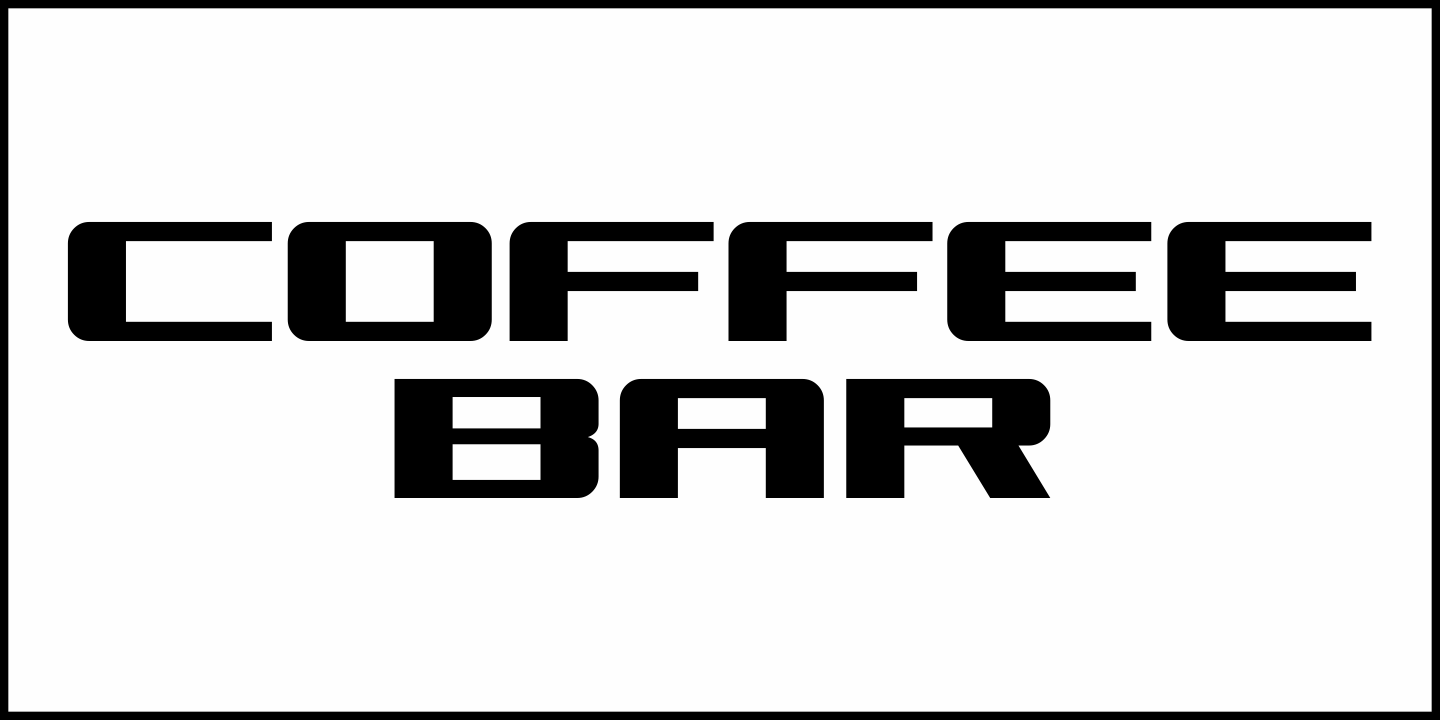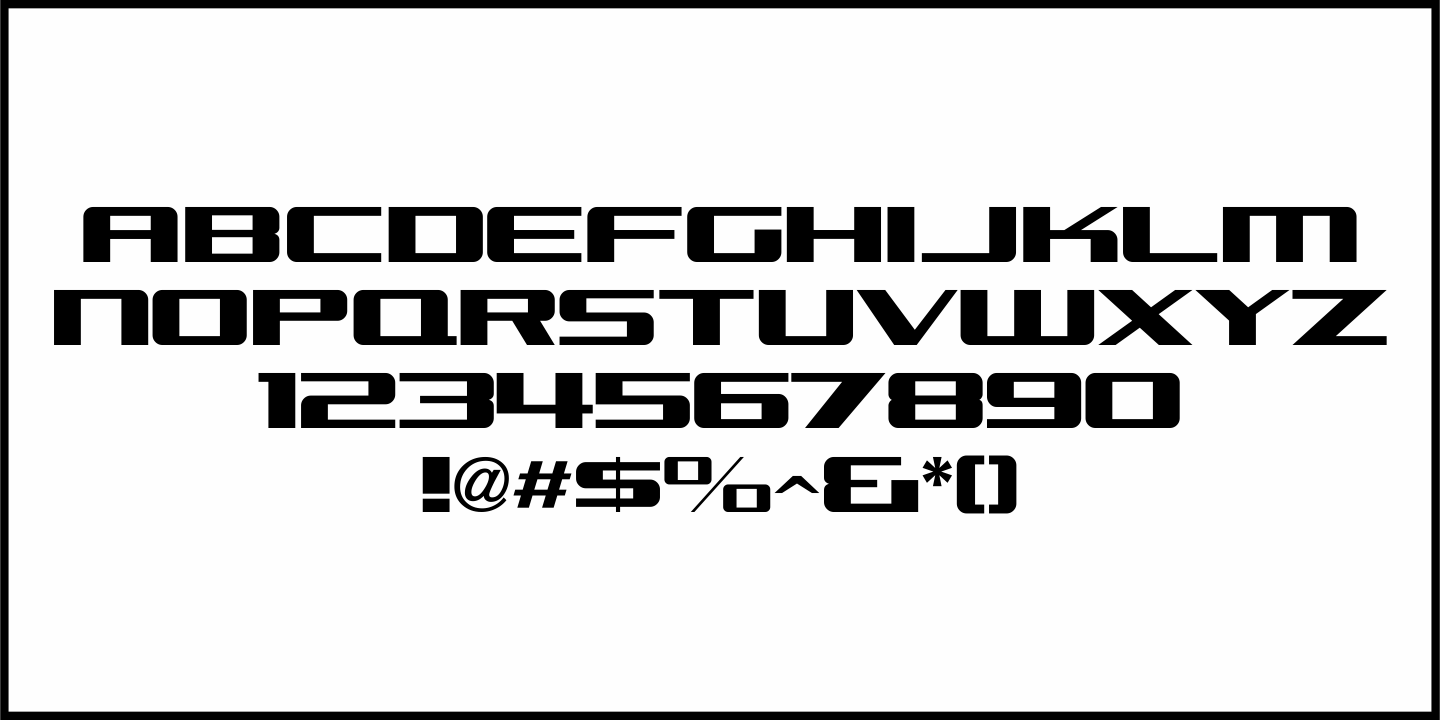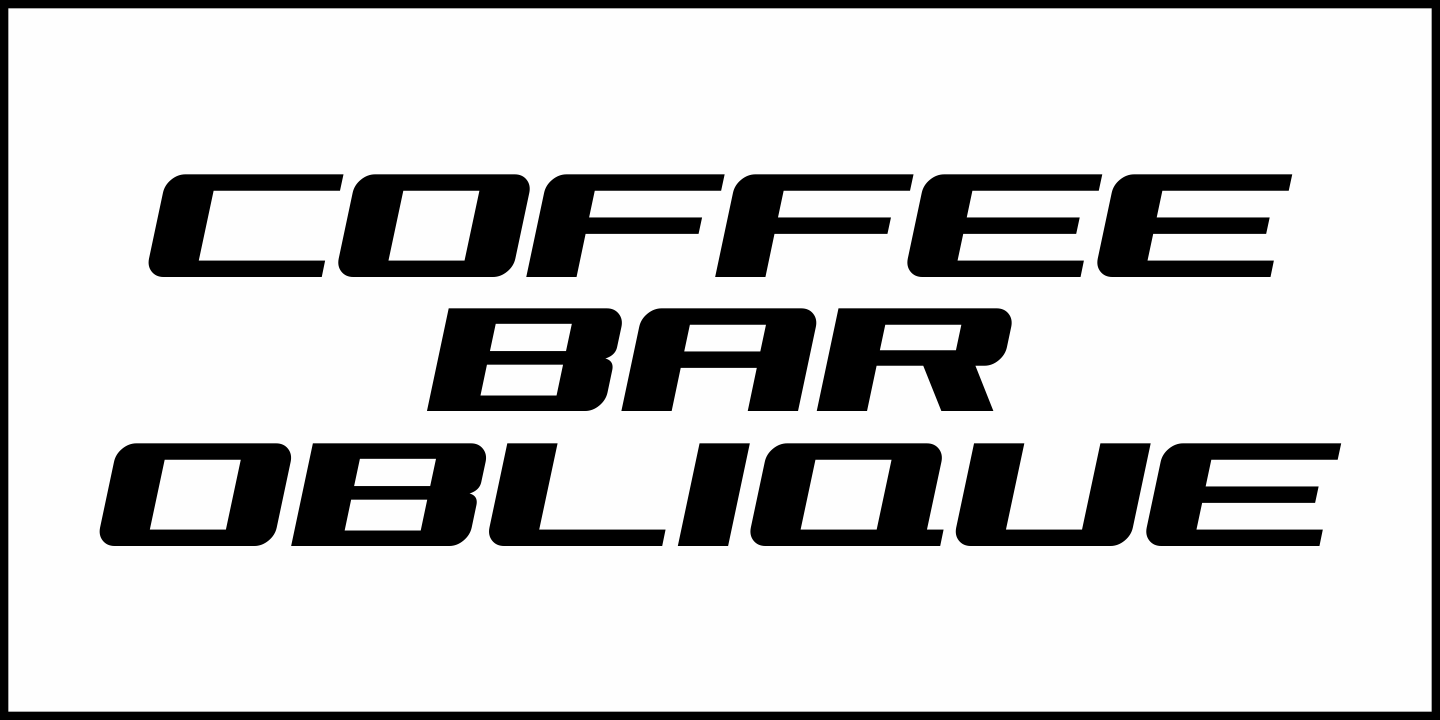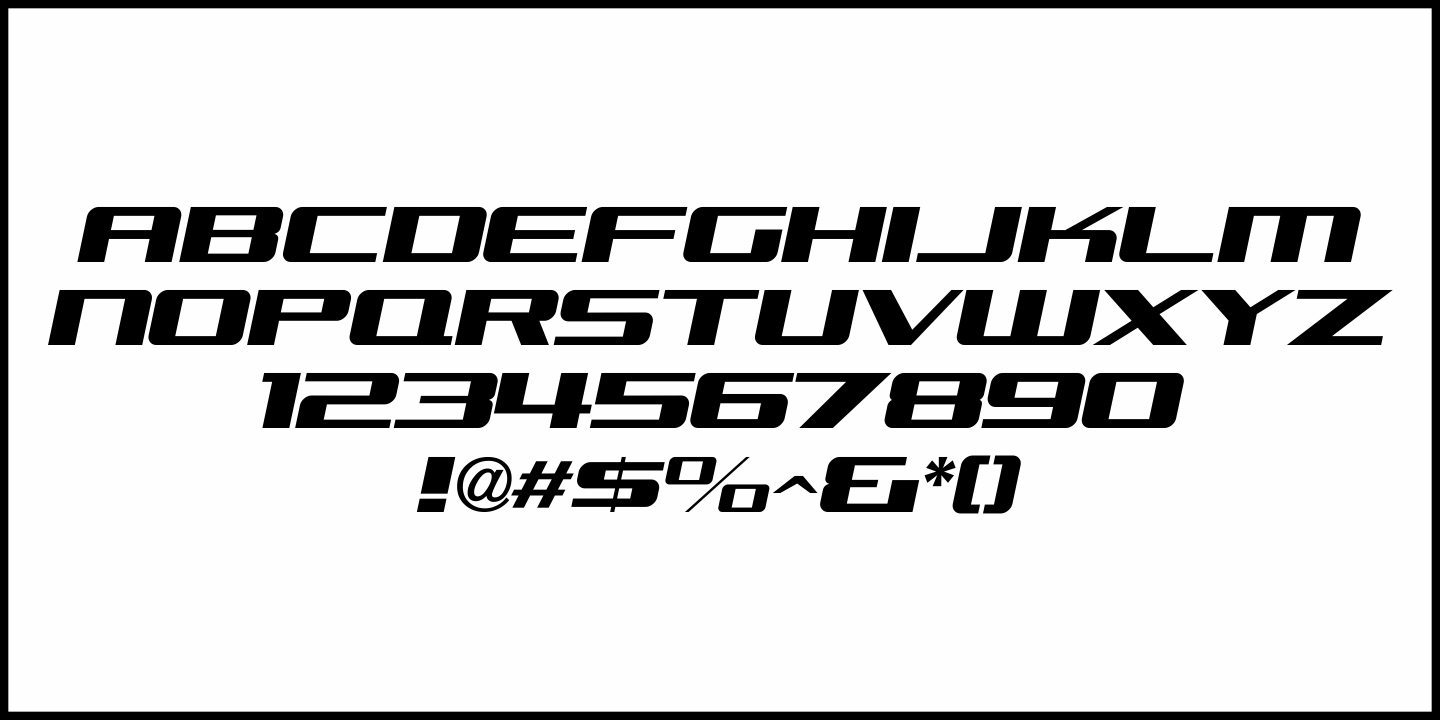
Coffee Bar
An image of the wide, Art Deco influenced lettering of a sign over a coffee bar inside a Jacksonville, Florida Lovett’s Supermarket (a predecessor to Winn-Dixie) inspired the namesake font Coffee Bar JNL – available in both regular and oblique versions.
Coffee Bar JNL Regular by Jeff Levine Fonts